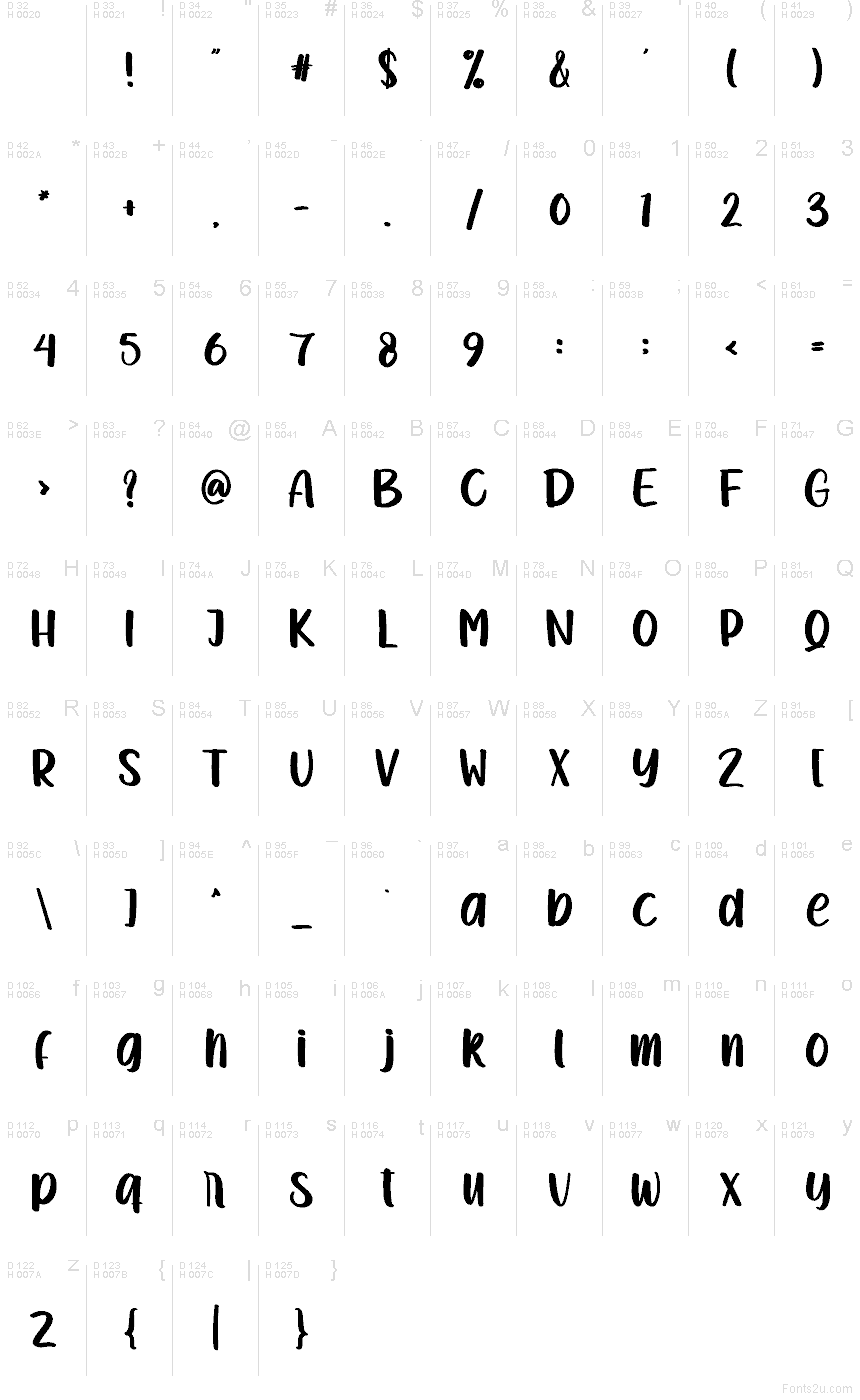
Digest Food is a free handwritten display font with tall, loosely drawn letters, changing stroke widths, and a narrow upright silhouette shaped by quick pen movement and slight variations from letter to letter. Rounded bends and blunt endings soften its otherwise stretched proportions.
An independent neighborhood cafe, bakery, or casual food brand could use this friendly lettering across menus, packaging, and window signs because its irregular contours suggest a personal note from the kitchen. Cookbook covers and magazine features about home cooking are another strong fit, with headings that can echo hand-drawn ingredient sketches or annotations in a busy, well-used recipe book.